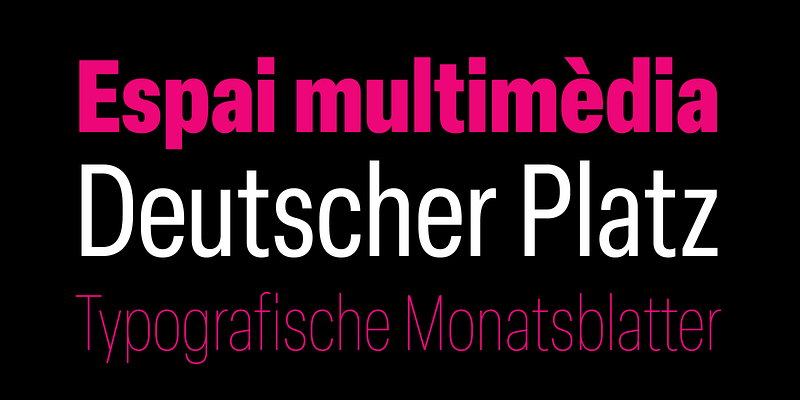
Elza Condensed Font Free Download is a modern, compact sans-serif typeface designed to maximize space without sacrificing style or legibility. With its tall x-height, tight letter spacing, and geometric structure, this font is ideal for headlines, packaging, branding, editorial layouts, and UI elements where a sleek, space-efficient type solution is needed.
Elza Condensed Font Free Download maintains a minimalist and professional appearance, making it suitable for both contemporary and high-impact designs. Its clean strokes and condensed proportions allow for strong presence in narrow columns or small spaces, while still maintaining clarity and visual appeal.
The font is available in multiple weights, allowing for typographic flexibility across both print and digital platforms. It pairs well with wider display fonts or serif styles for dynamic and balanced layouts.